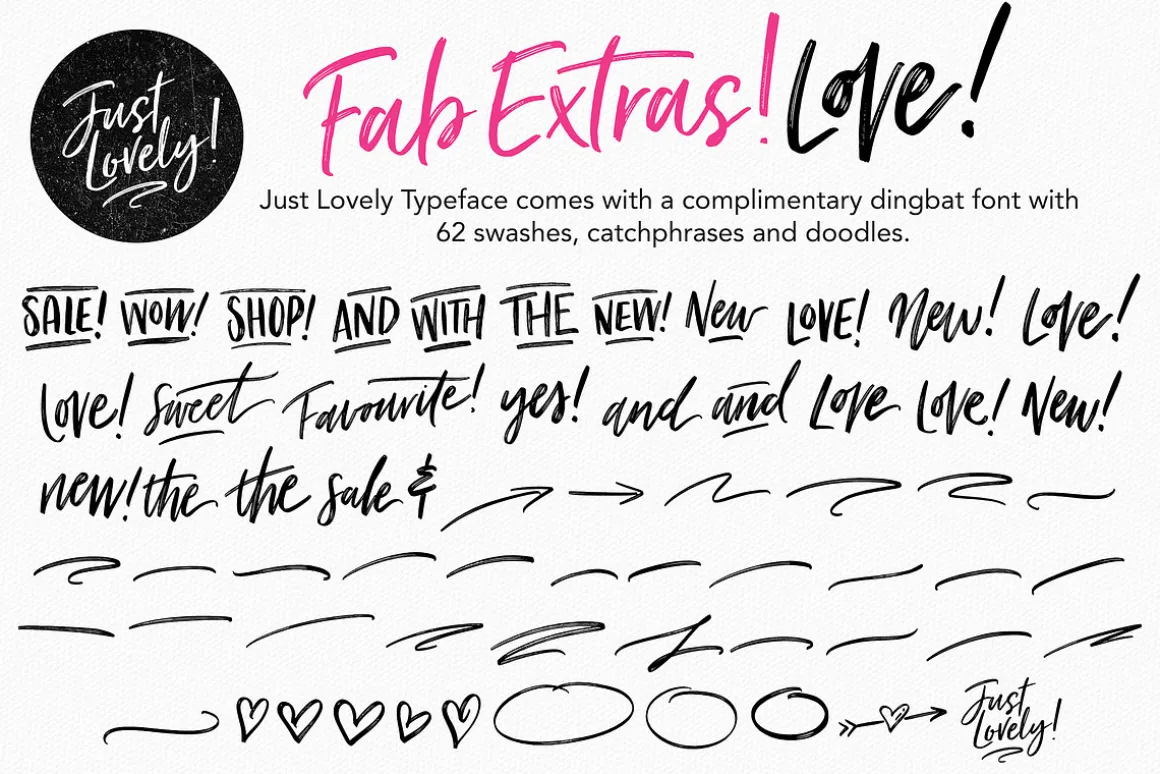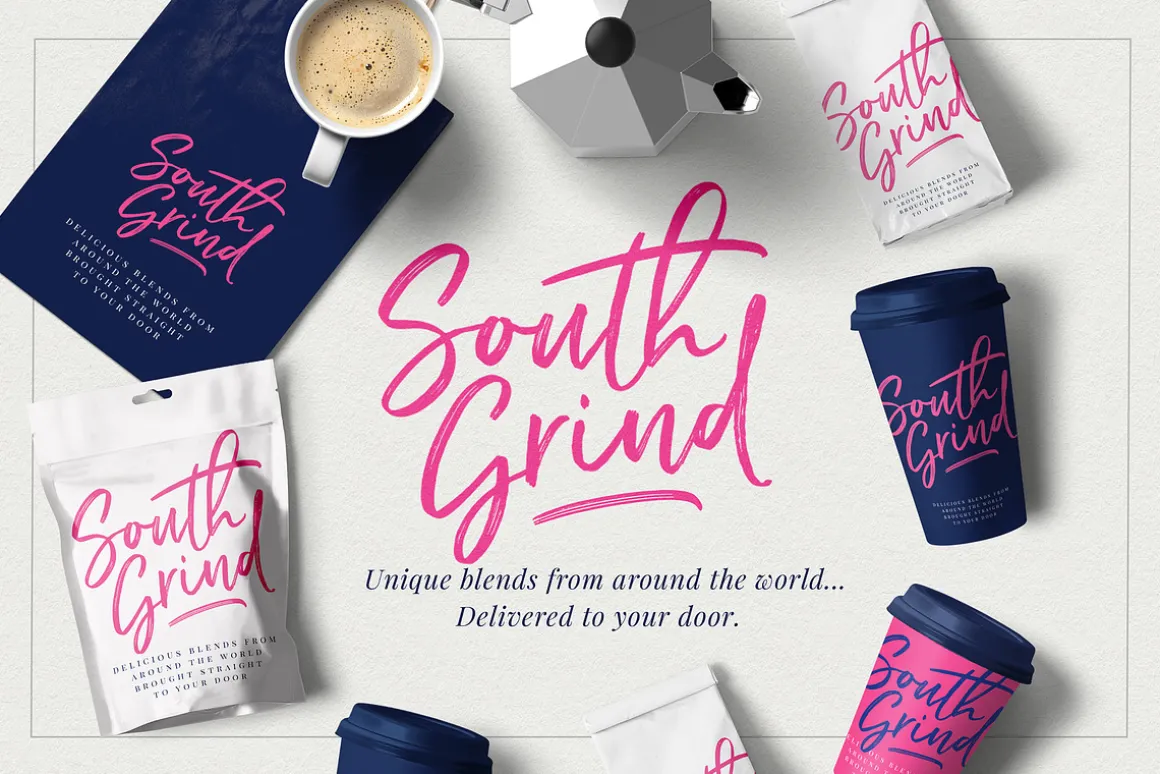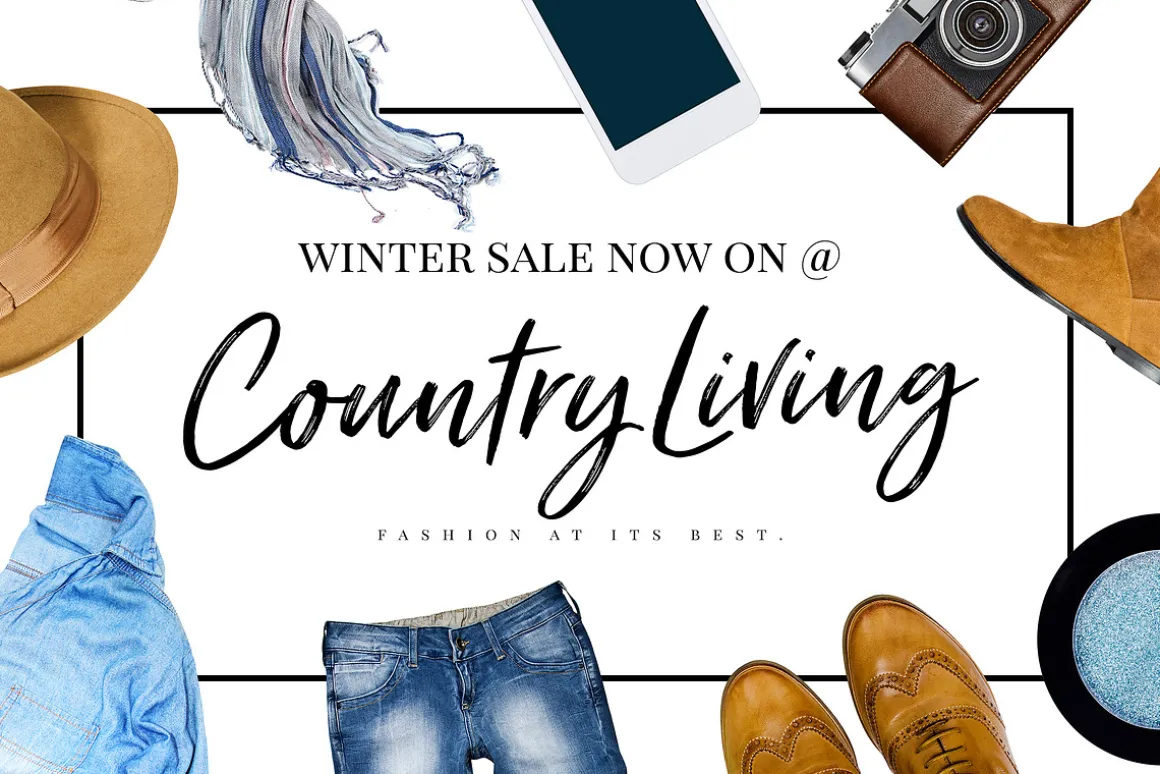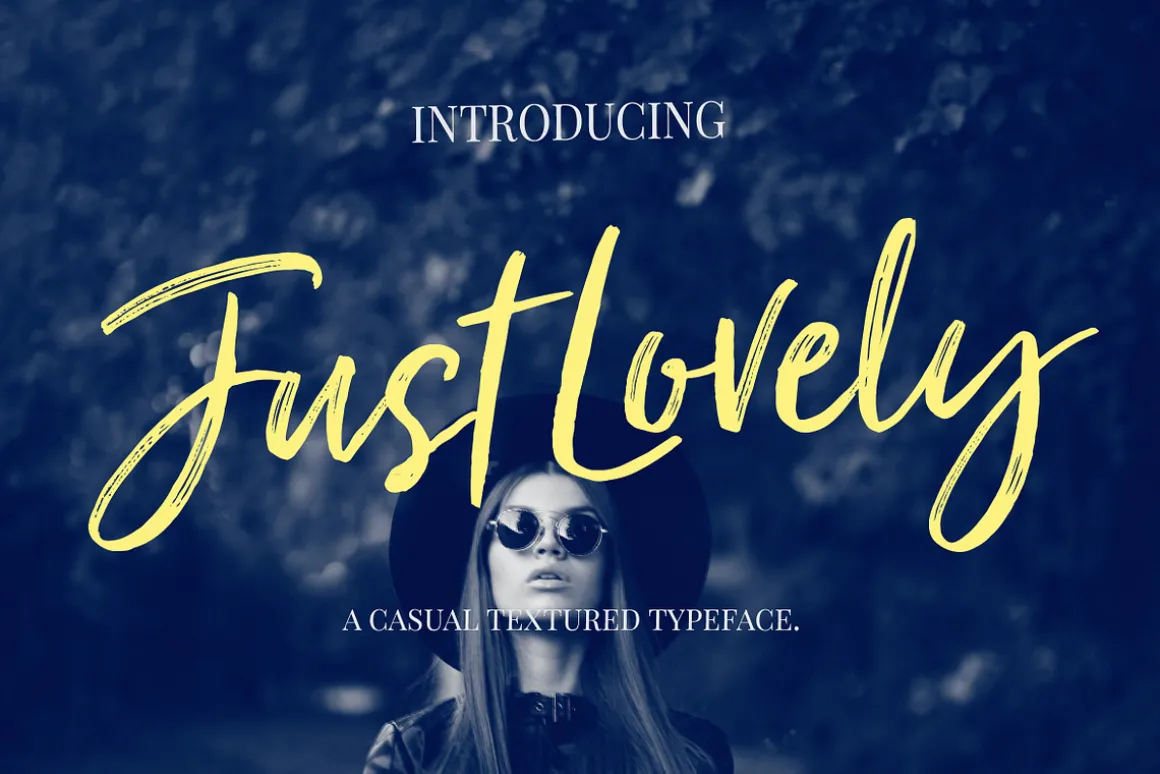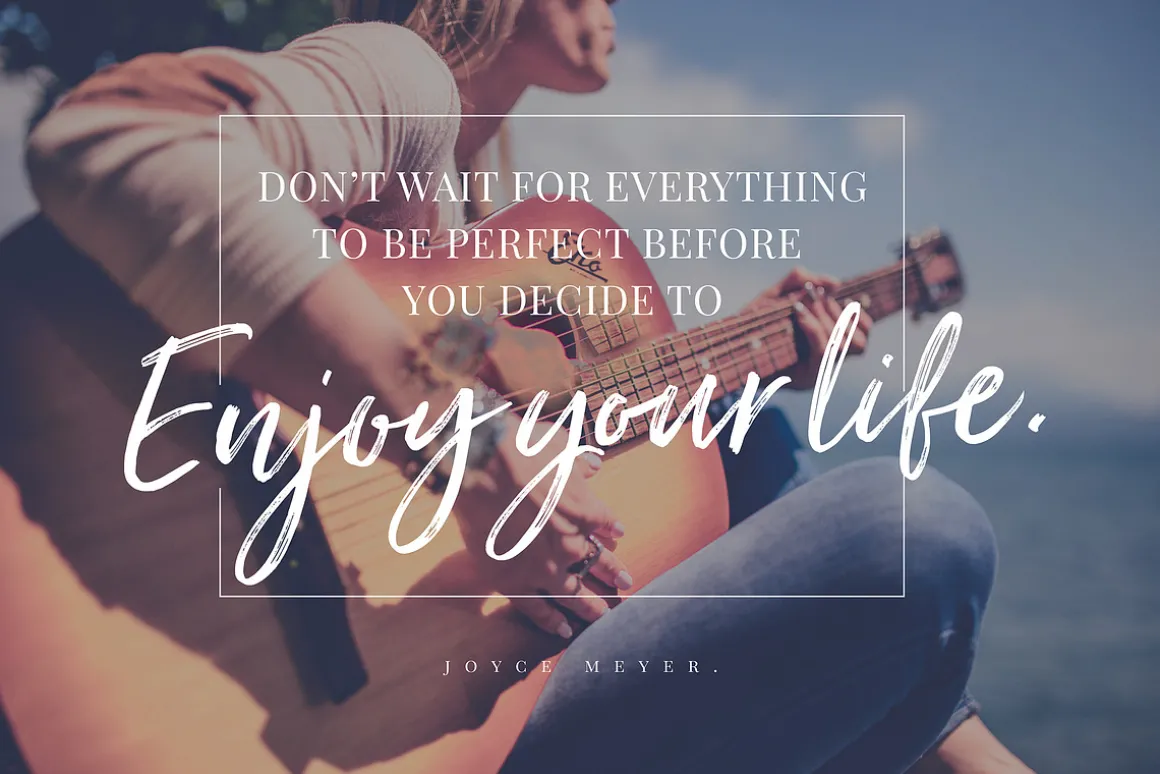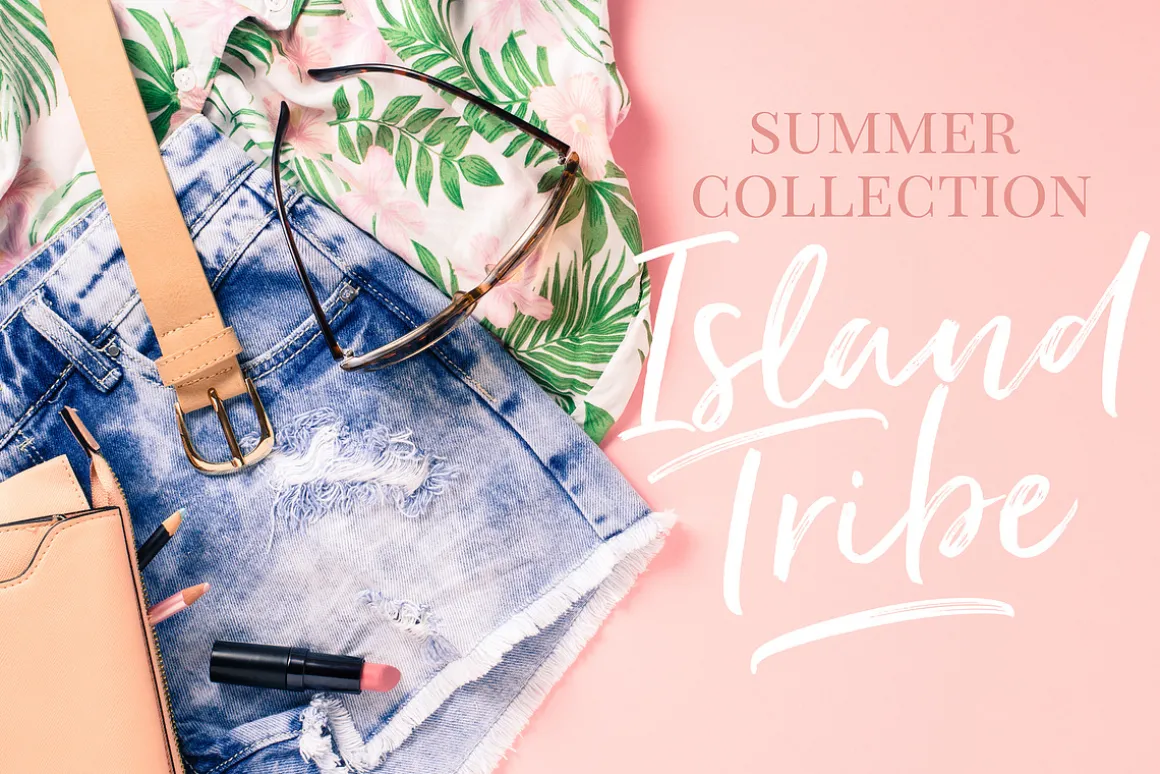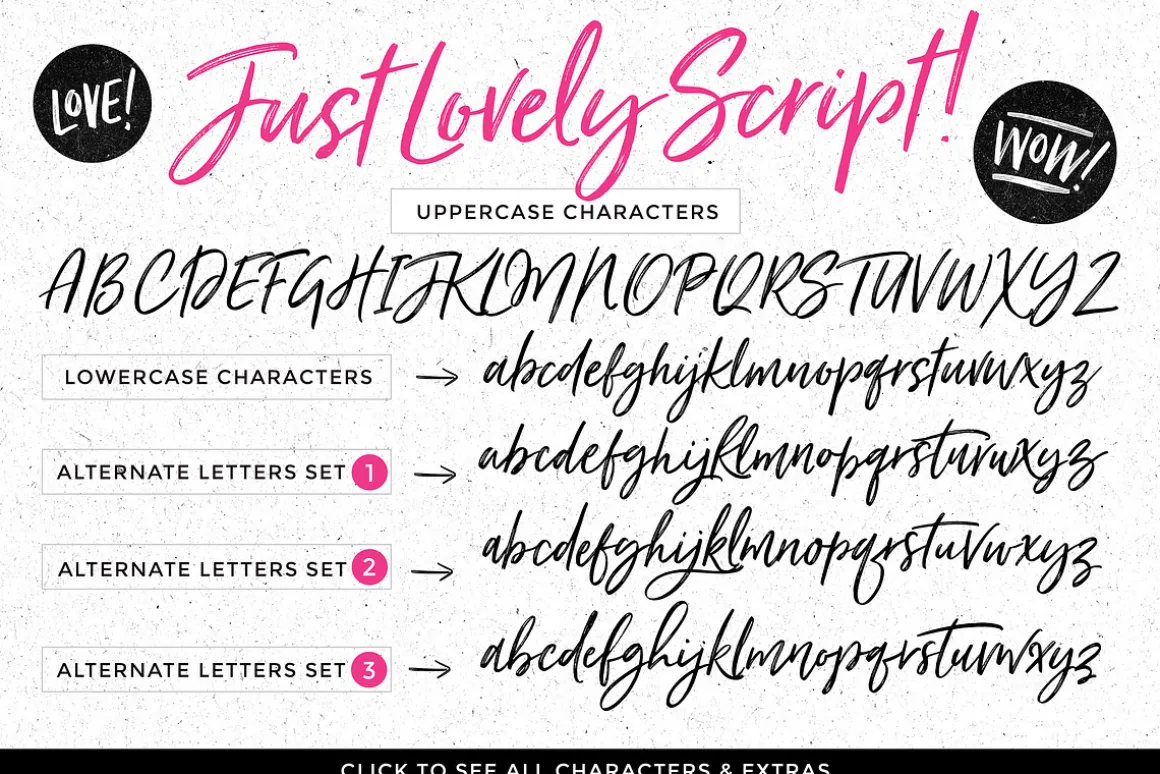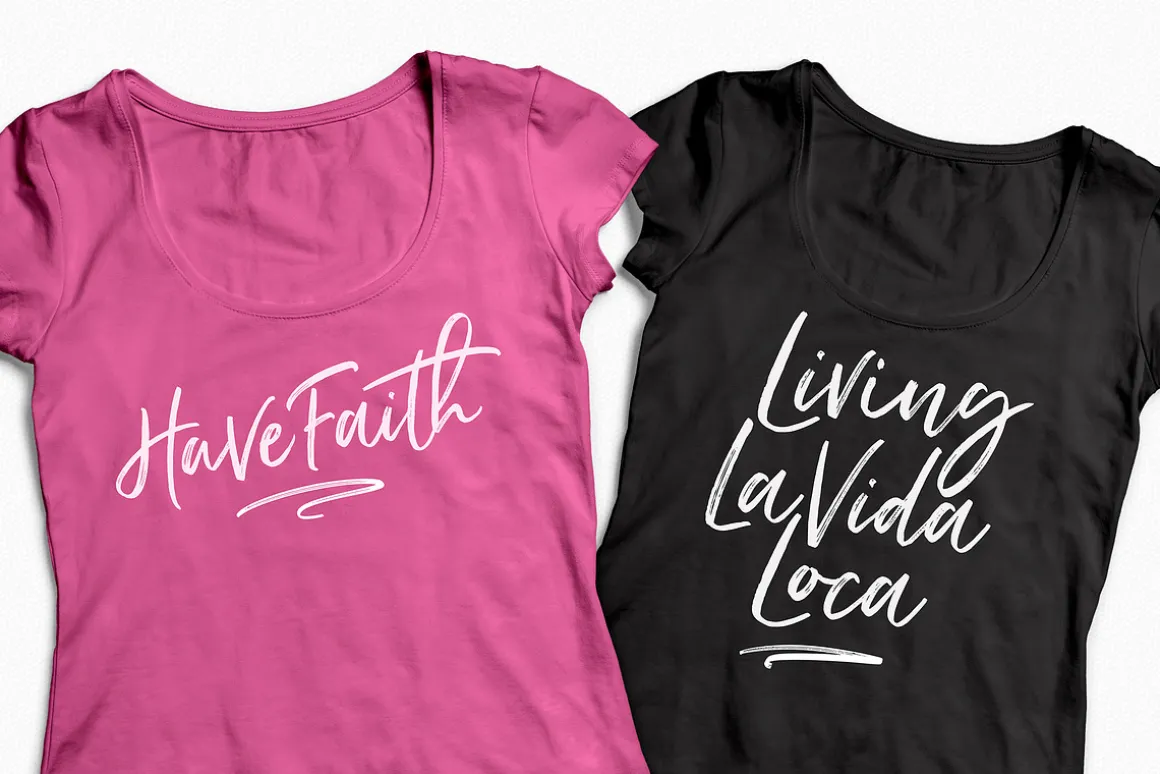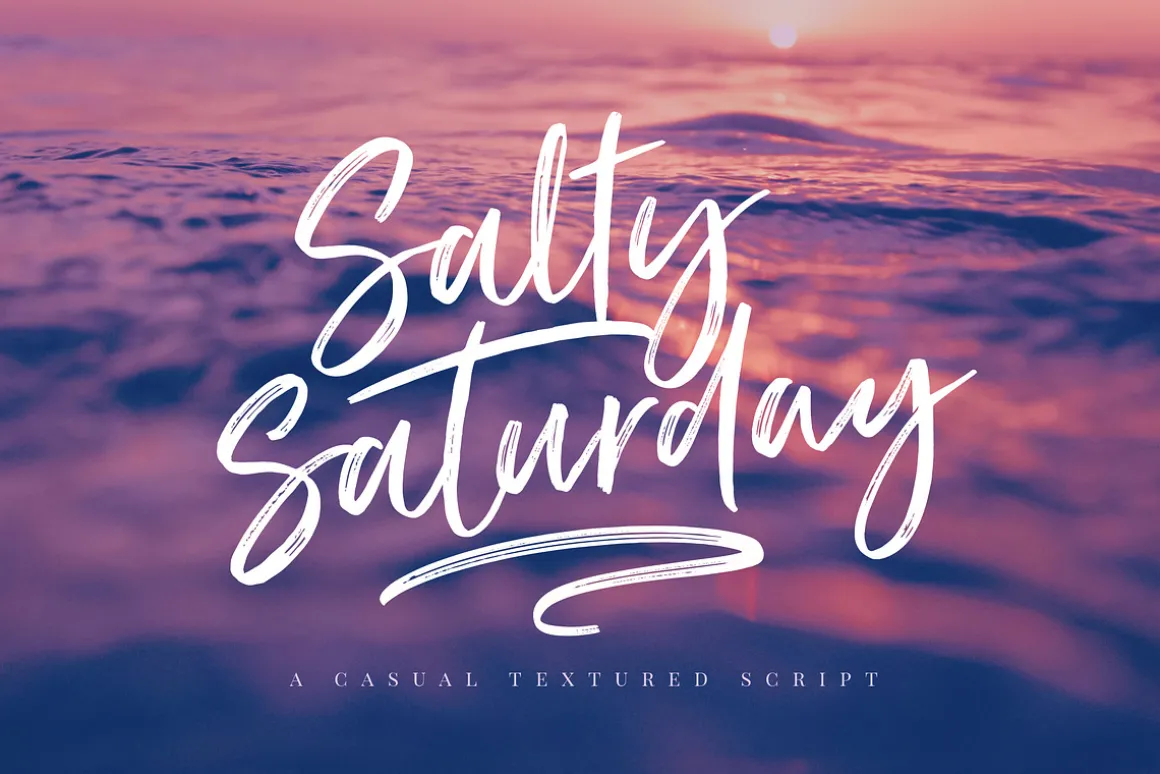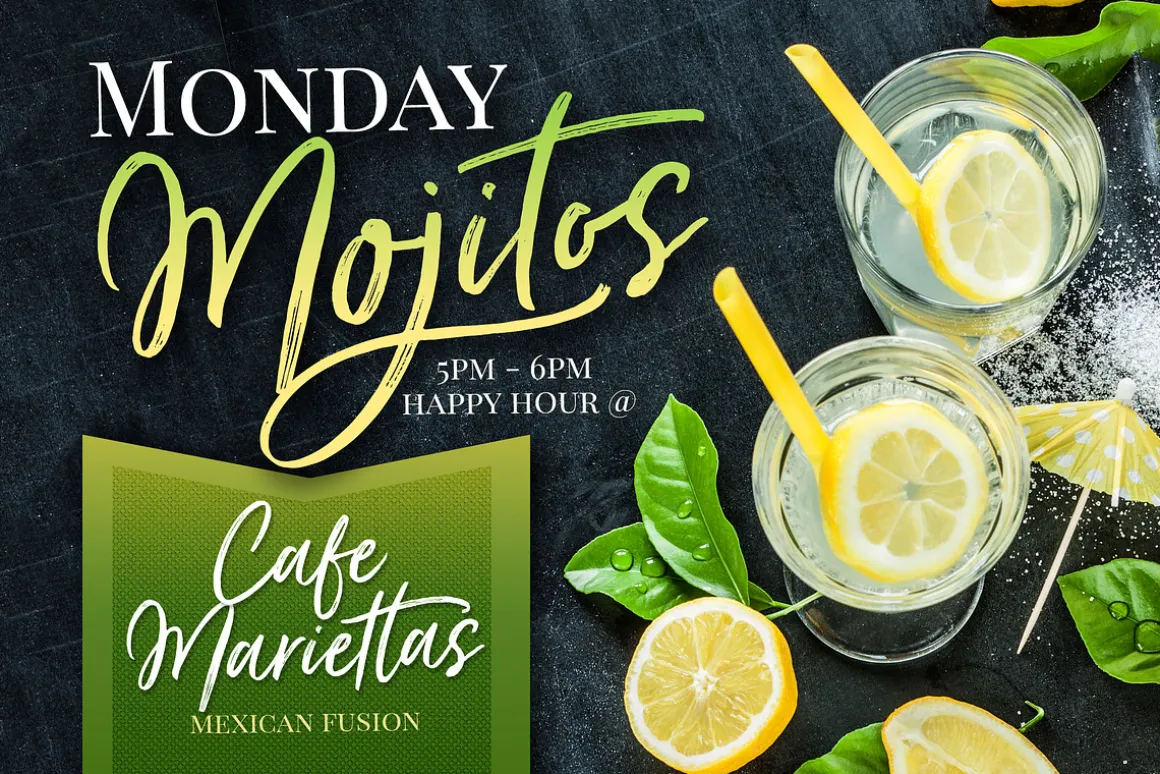
Introducing Just Lovely! Font and Extras.
Bold, curvaceous and steadfast , Just Lovely Font & Extras is a casual dry brush font with a multitude of letter variations to make that perfect and unique design.
Just Lovely comes with an alternate set of uppercase letters, and 3 sets of lowercase letter alternates to ensure you get the look you are after.
To top it all off, Just Lovely comes with a complimentary dingbat font with a set of 62 swashes, catchwords, and doodles to bring your type designs to life!
Just Lovely comes is various styles – Regular, Slanted , and Wide Slanted – each with it’s own unique personality to suit the look you are after. A Solid Version of the above three is also included.